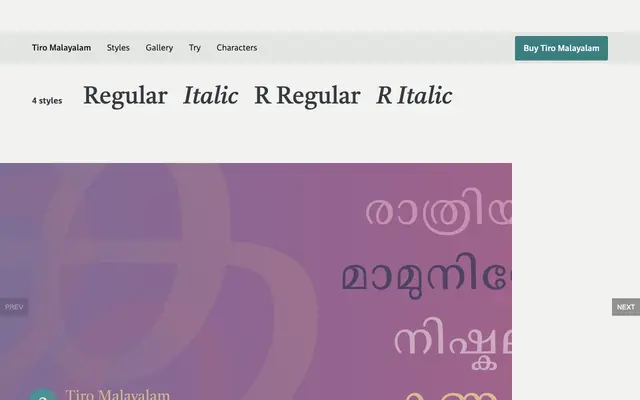
Tiro Malayalam
Tiro Typeworks · John Hudson, Fiona Ross, Kaja Słojewska, Paul Hanslow
A Malayalam typeface by John Hudson and Fiona Ross, offered in both traditional and reformed orthography variants.
Designed by John Hudson and Fiona Ross with italic adaptation by Kaja Słojewska and Paul Hanslow, Tiro Malayalam addresses the typographic needs of the Malayalam script with careful attention to orthographic convention. The family splits into two distinct subfamilies: Tiro Malayalam for traditional orthography and Tiro Malayalam R for reformed orthography, each available in regular and italic. The glyph set is extensive, covering over 1,300 characters including broad Latin Extended support alongside the Malayalam script.
Tiro Malayalam is a script typeface designed for the Malayalam writing system, with both traditional and reformed orthography variants. The Latin companion follows a serif structure, making serif the closest applicable category.